Actually Gothic and Blackletter are same. Blackletter is a calligraphic style which was popular for writing manuscripts and books in German-speaking countries during the Middle Ages. This font is still very popular. The use of this font can be noticed in various posters, letter heads, tattoos, badges, logos etc.
UnifrakturCook Font
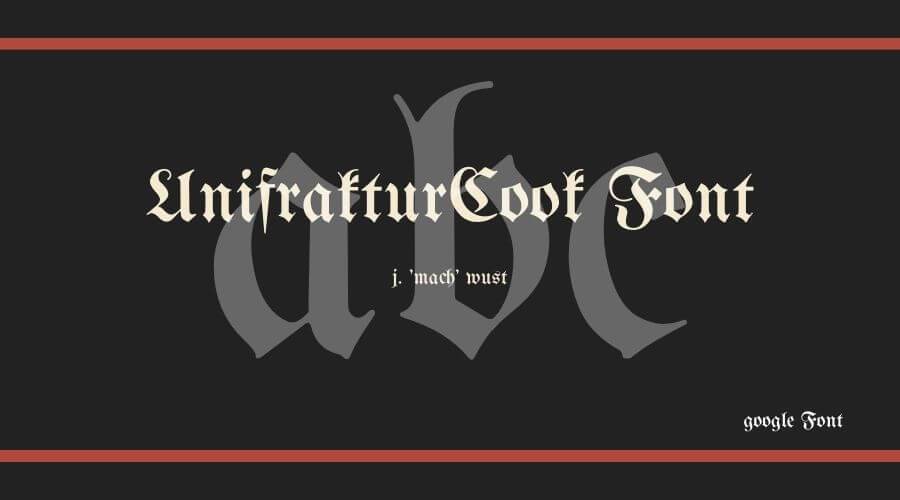
UnifrakturCook is a blackletter font designed by j. ‘mach’ wust. UnifrakturCook first published in 2010 through UnifrakturCook. UnifrakturCook is a Google Font that is licensed under theĀ Open Font License. So, it is totally free for commercial use.
Abibas Font
Abibas is a Geomatric typeface blackletter font designed by Christ Trekker. is a fork/extension of Gamaliel, a geometric blackletter by Rafael Ferran i Peralta. Abibas font is a free font. You can use it for commercial purposes also.
Pirata One Font
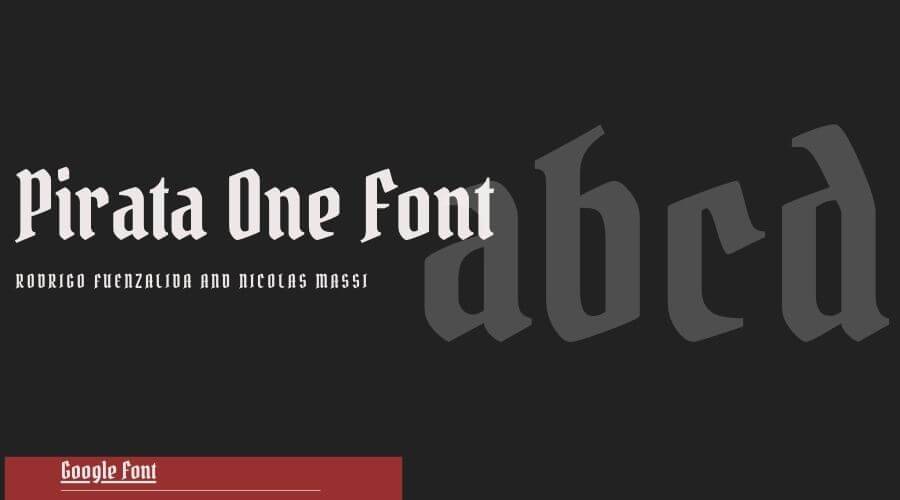
Pirata One is gothic textura blackletter font designed by Rodrigo Fuenzalida and Nicolas Massi. This font is published through Google fonts and licensed under theĀ Open Font License. You can create beautiful logo, poster, banner, letter head and many more with Pirata One Font.